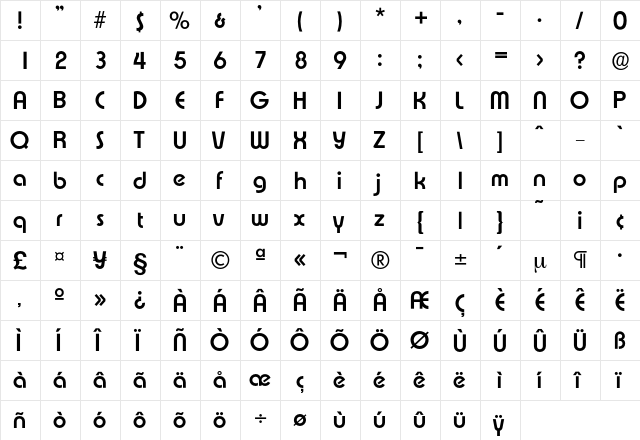
Expressa-DemiBold Regular
Design Context for Expressa-DemiBold Typeface
Expressa-DemiBold is a composed and adaptable typeface that performs quietly and consistently across a wide range of design contexts. The heavy weight commands attention and anchors typographic hierarchies.
Pro Tip: Use Expressa-DemiBold in both headline and body roles to test its range before committing to a single application.